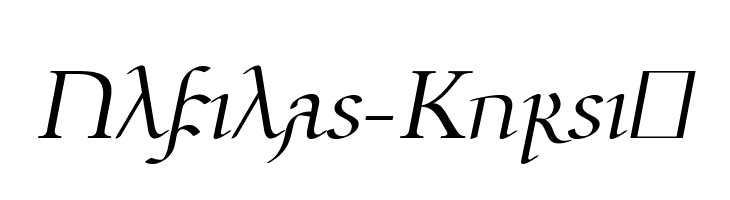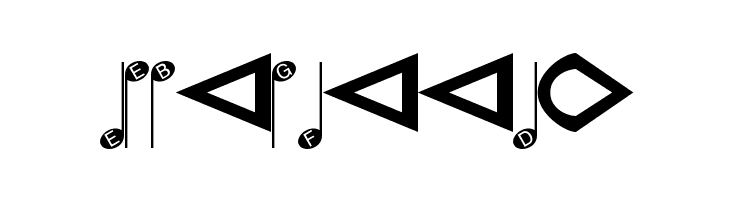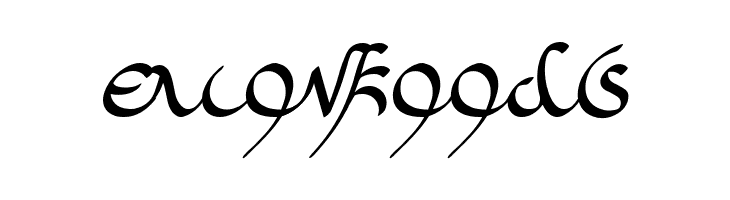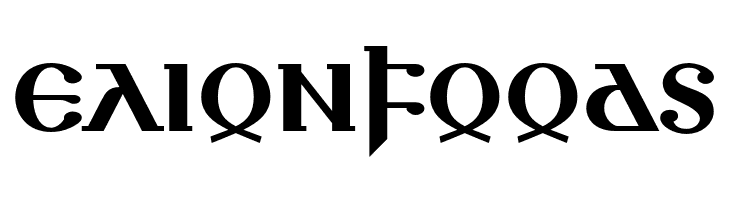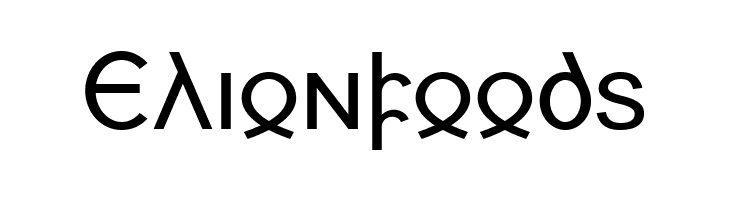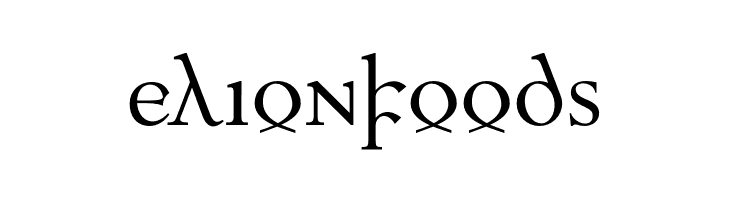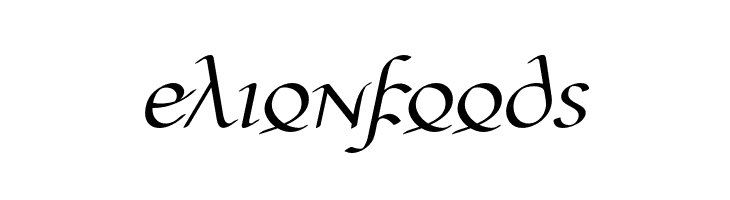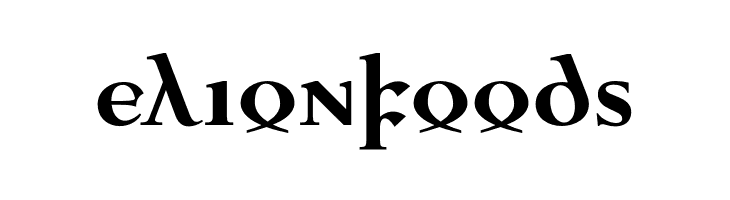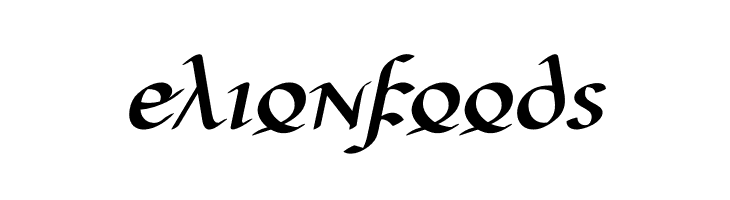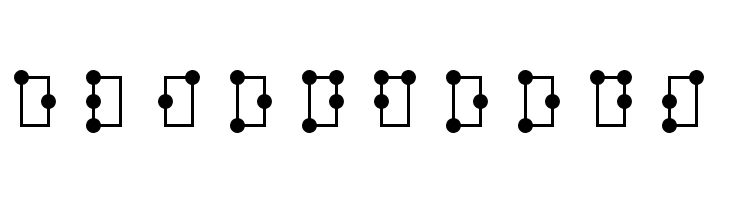
( Robert Allgeyer - www.icogitate.com/~ergosum/fonts/music-fonts2.htm )
A playful font combining musical notes with geometric shapes for a unique, artistic style.
( Robert Pfeffer - robert-pfeffer.net/schriftarten/englisch/index.html )
A calligraphic font with flowing, cursive strokes and a modern touch.
( Robert Pfeffer - robert-pfeffer.net/schriftarten/englisch/index.html )
A bold, angular font with sharp serifs and a modern Gothic influence.
( Robert Pfeffer - robert-pfeffer.net/schriftarten/englisch/index.html )
A modern, geometric font with sharp angles and clean lines.
( Robert Pfeffer - robert-pfeffer.net/schriftarten/englisch/index.html )
A Gothic-inspired font with angular shapes and pronounced serifs.
( Robert Pfeffer - robert-pfeffer.net/schriftarten/englisch/index.html )
An elegant cursive font with a dynamic and sophisticated style.
( Robert Pfeffer - robert-pfeffer.net/schriftarten/englisch/index.html )
A bold, geometric font with angular lines and a strong visual impact.
( Robert Pfeffer - robert-pfeffer.net/schriftarten/englisch/index.html )
A bold, angular serif font with a Gothic influence and modern flair.
( Fonts by Roberto Mocci )
A tactile Braille system with raised dot patterns for accessibility.
( Fonts by Roberto Mocci )
A modern font combining Braille patterns with Latin characters for a tactile and visual experience.